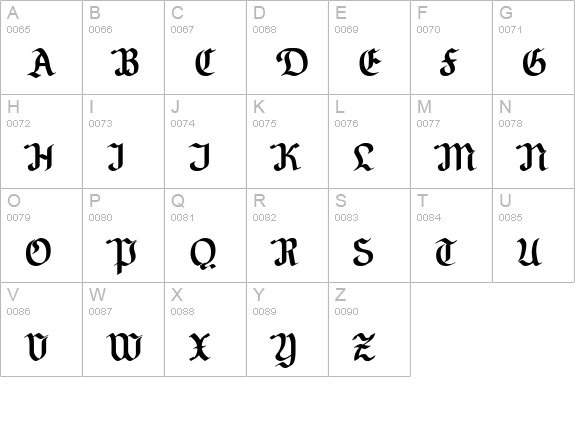
NeuAltisch Bold is a strong, high-contrast variant in the NeuAltisch typeface family \xE2\x80\x94 well suited to headlines, attention-grabbing titles, and strong calls-to-action.
NeuAltisch Bold is a striking and powerful font that commands attention with its bold and clean lines. This modern typeface exudes confidence and sophistication, making it perfect for headlines, titles, and branding projects that require a strong and impactful presence. The bold weight of NeuAltisch Bold ensures that your message will stand out and make a lasting impression on your audience. Best of all, NeuAltisch Bold is available for free download at FontsMarket.com. This means that you can easily access this stunning font to elevate your design projects without any cost. Don't miss out on the opportunity to add NeuAltisch Bold to your font collection and take your designs to the next level.